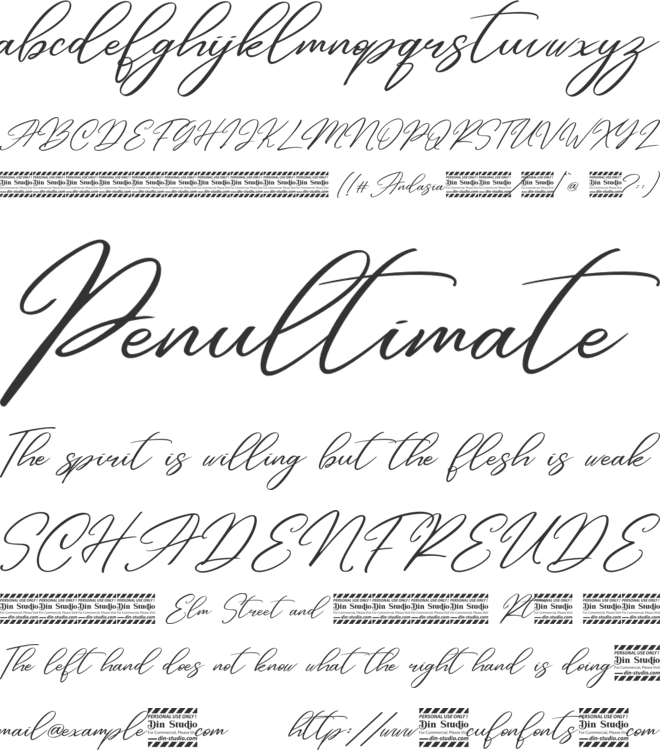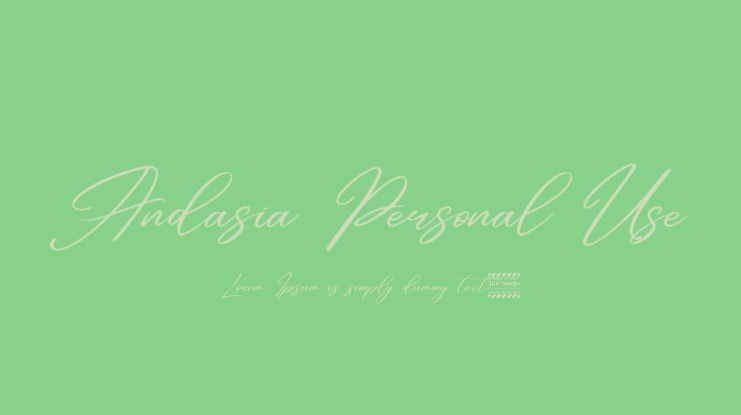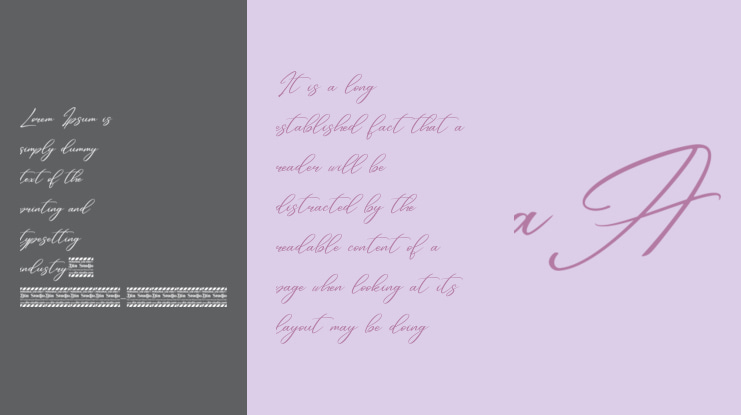
Andasia Script beautiful calligraphy with natural and handwritten style. It brings a beautiful and modern typeface that best used for weddings, branding, logotype, and quotes.